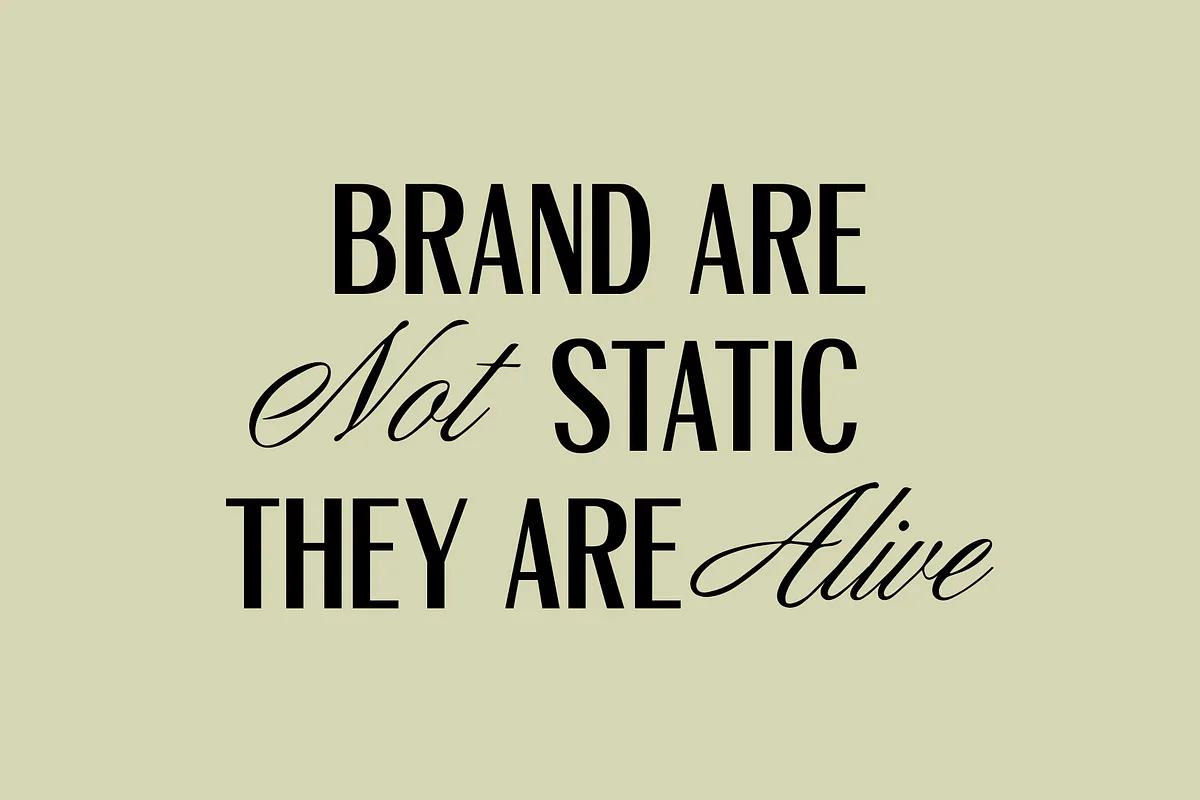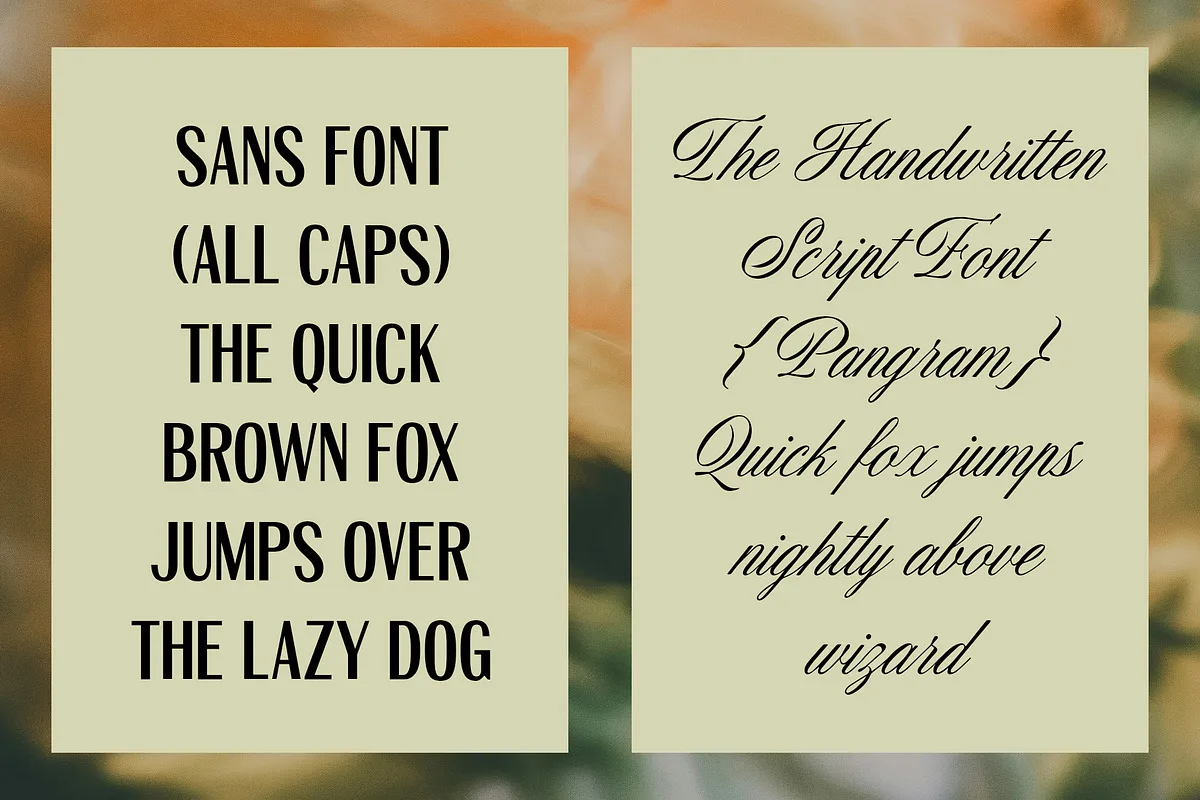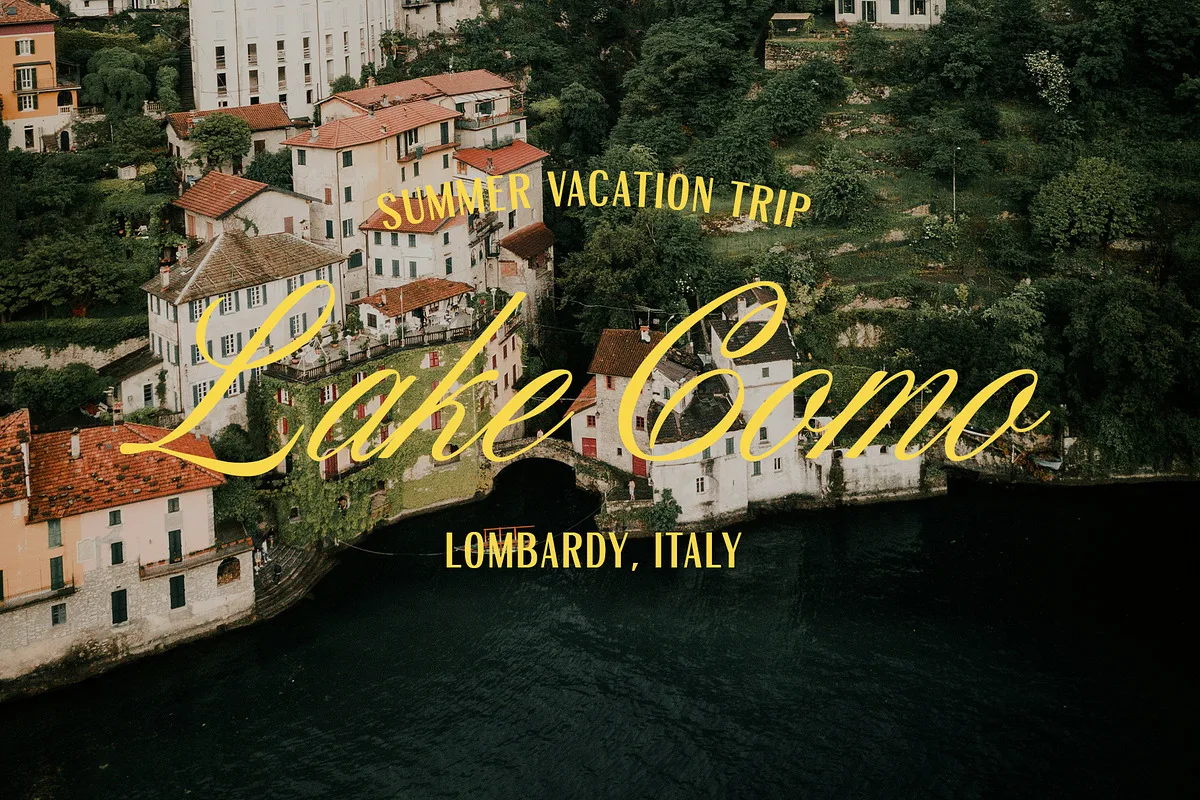
Introducing Venta Nueva, a charming duo font that brings the perfect harmony between classic elegance and modern simplicity. This unique combination consists of two complementary typefaces:
- Script Font: A classic handwritten style that is smooth and flowing, perfect for creating an elegant, warm, and personal impression. Ideal for branding, wedding invitations, quotes, and feminine designs.
- Sans Font: A capital letter style with a classic, minimalist look. Its clean, versatile design makes it perfect for headlines, logos, and typographic elements that require clarity.
Venta Nueva is designed to provide flexibility in a variety of design projects. Use a combination of the two to create an interesting visual contrast.
ED Venta Nueva – Font Duo